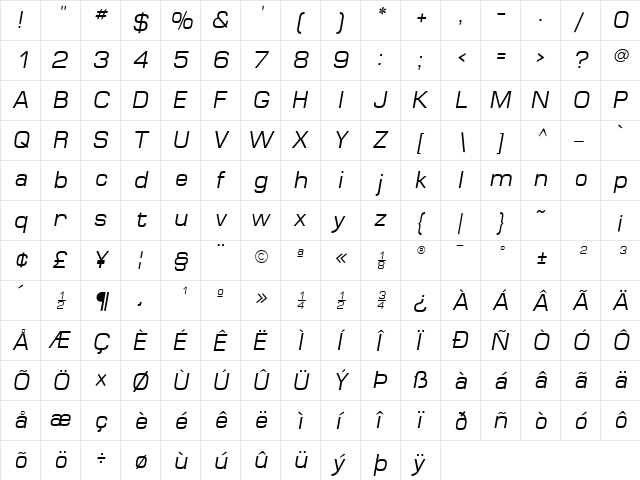
Minima SSi Italic
Design Context for Minima SSi Typeface
Minima SSi offers clean, dependable letterforms without strong stylistic allegiance, making it a practical choice for designers who need flexibility. Its italic angle brings a sense of urgency and motion to the letterforms.
Pro Tip: Use Minima SSi for emphasis, pull quotes, and subheadings where its slanted energy can add rhythm to the layout.